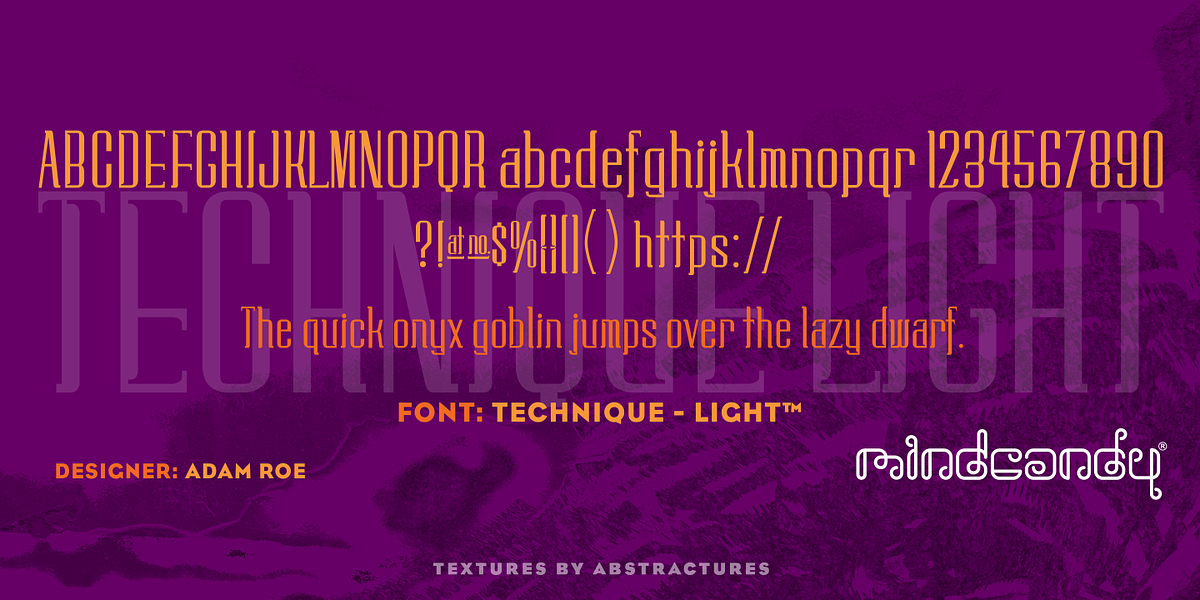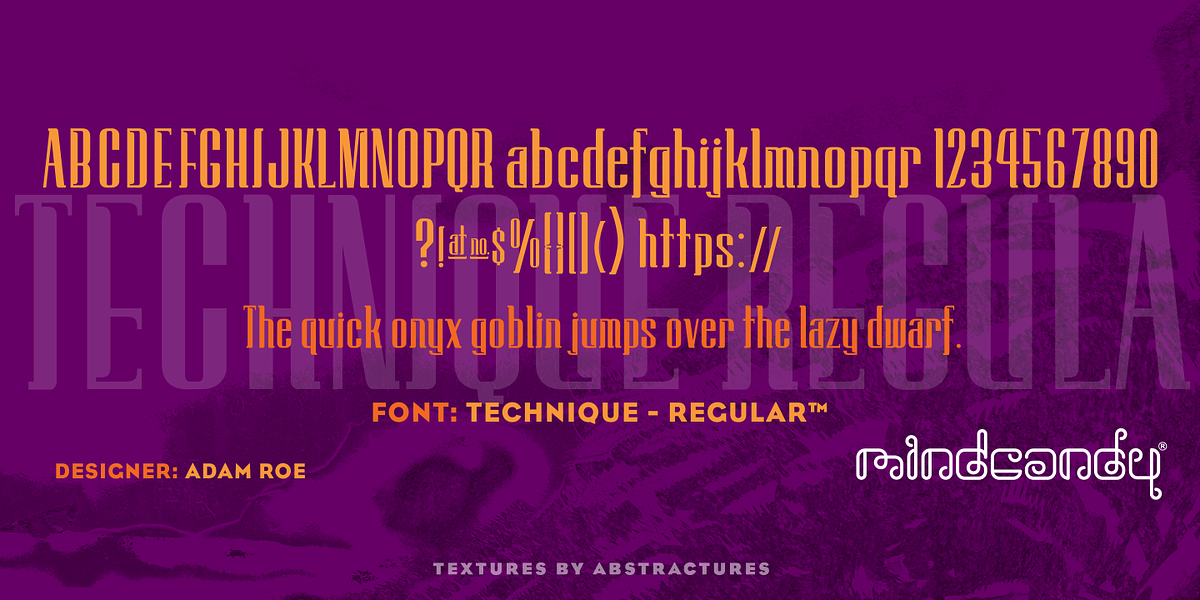
Technique™
This square display serif font, designed by Adam Roe, is a bold and modern typeface ideal for impactful headlines, branding materials, and large-scale display text. It's characterized by its high contrast and geometric shapes.